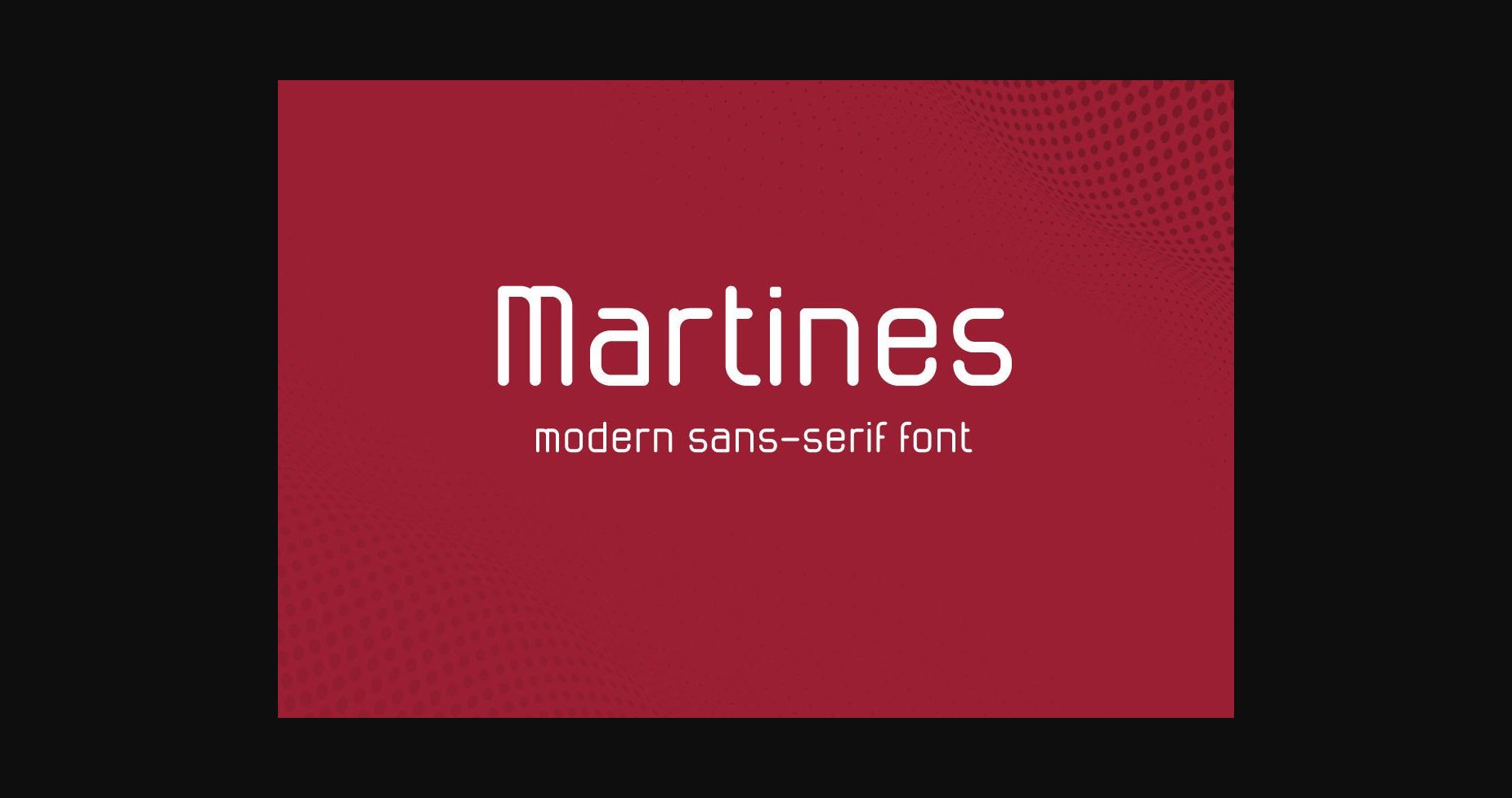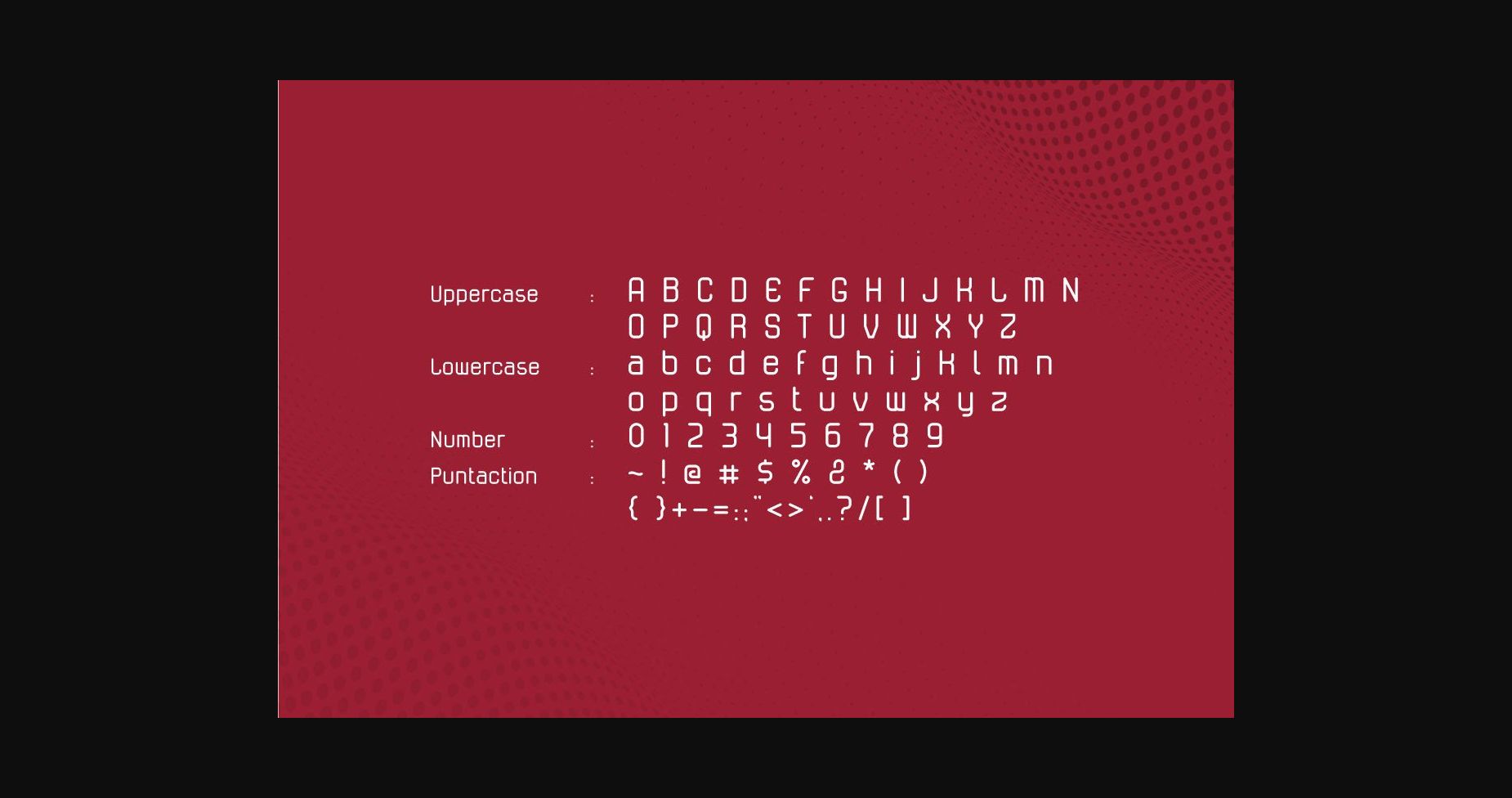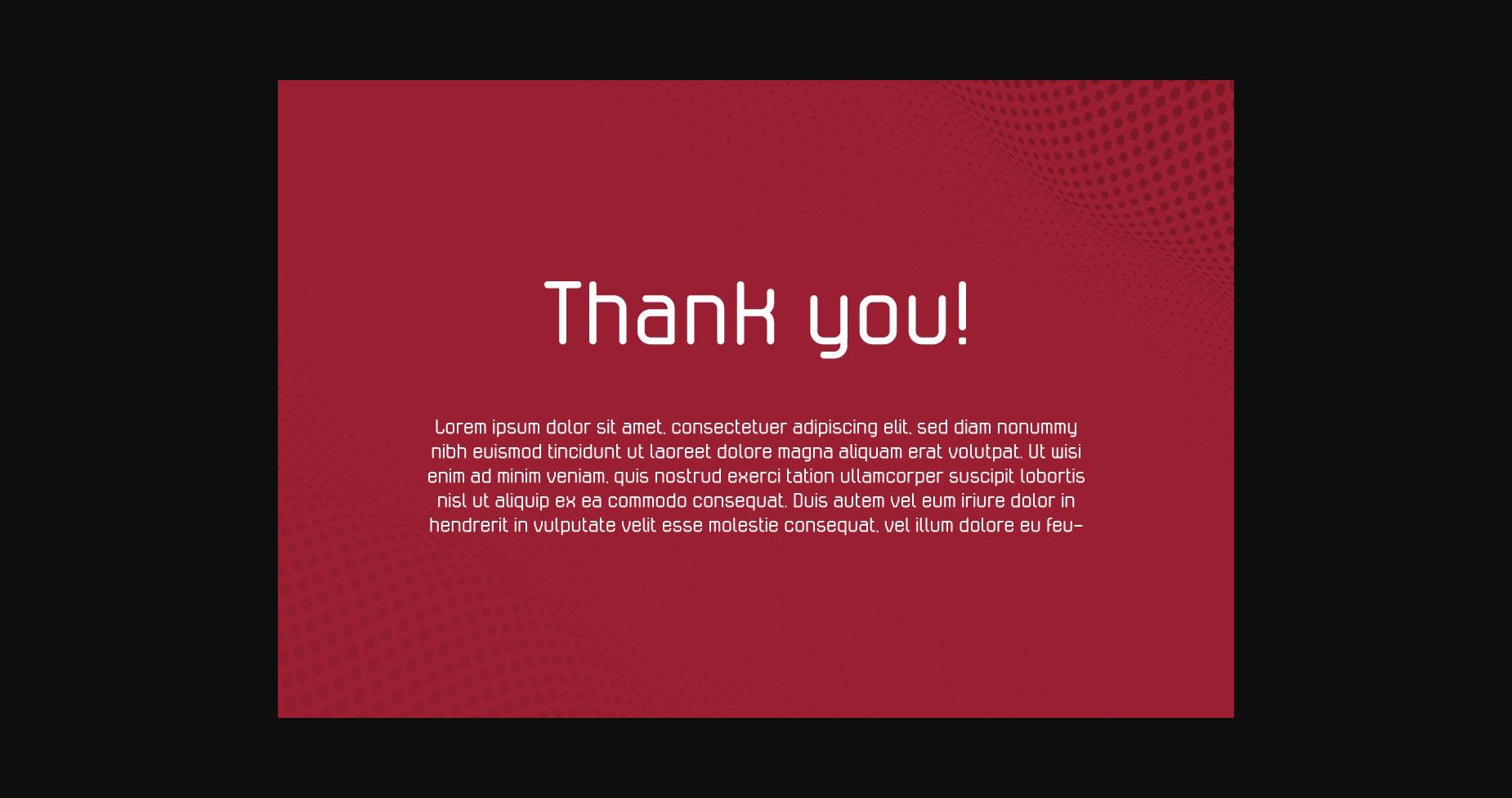
Martines Font
About Martines Font
Minimalist, modern, and stylish, that is MARTINES
Martines is suited for any work. It can be used for title or content. The look of the font is clean, modern, and stylish. Use this font in editorial projects, business cards, books, news, banner, flyer, logo, stationery, and many more. It also can be used in large-scale work.